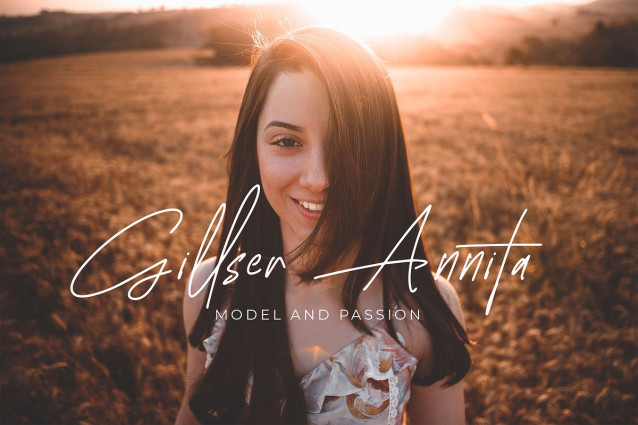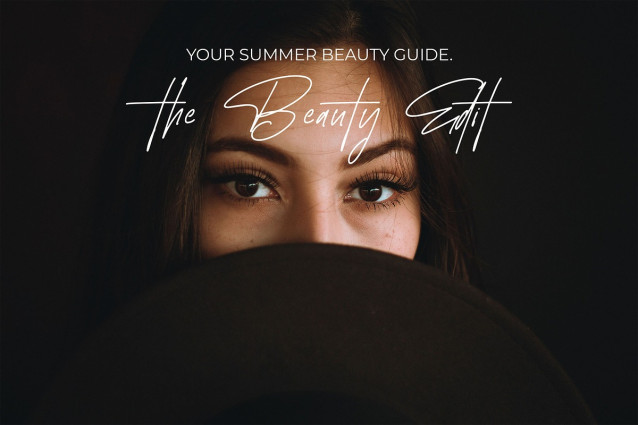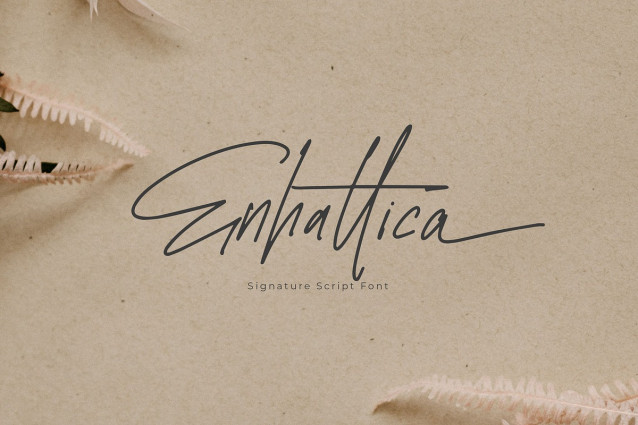
Enhattica Signature Font
Enhattica Signature Font is a refined script font designed with a signature style, bringing a touch of elegance and sophistication to your projects. Each character is uniquely crafted, adding an exclusive and polished look to your designs. Perfect for logos, branding, invitations, and more, Enhattica will enhance the visual appeal of any product, making it stand out effortlessly.